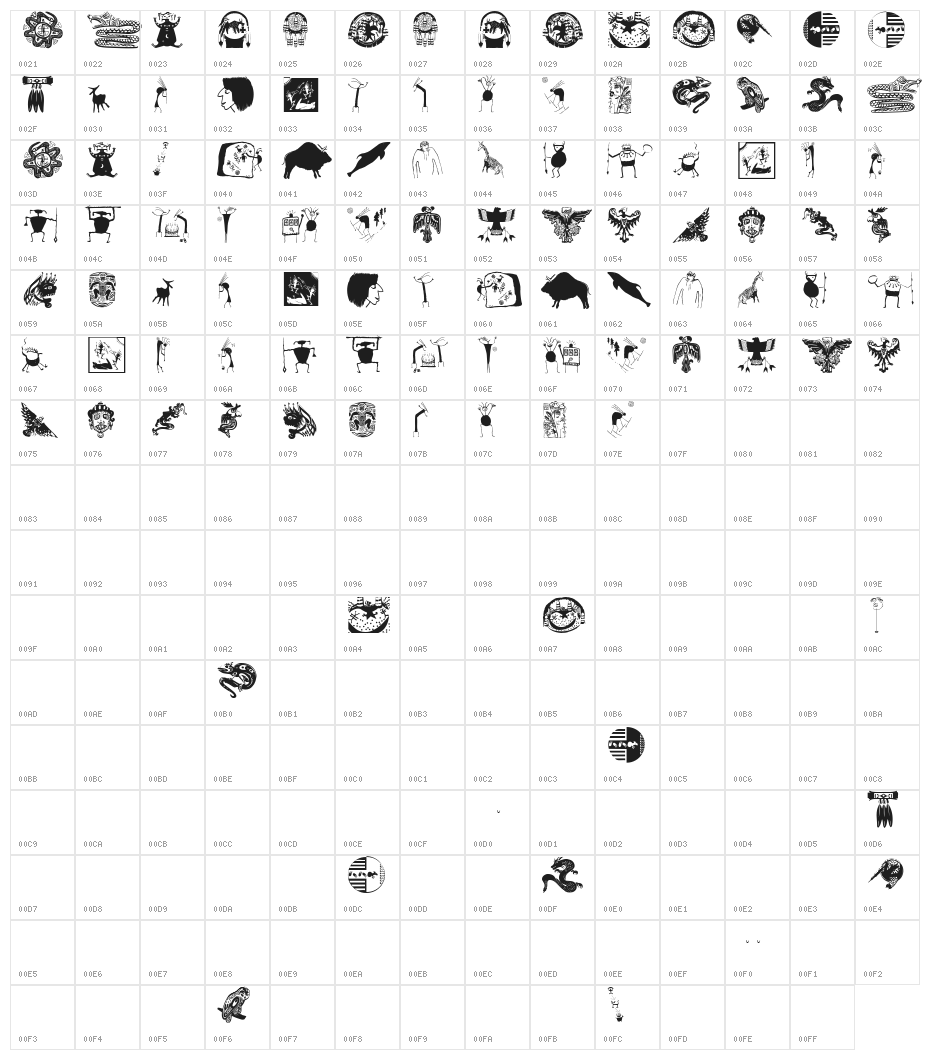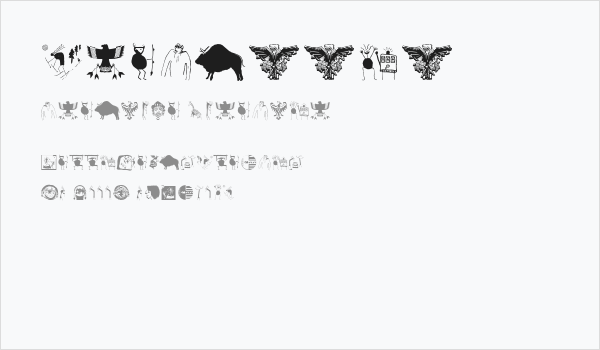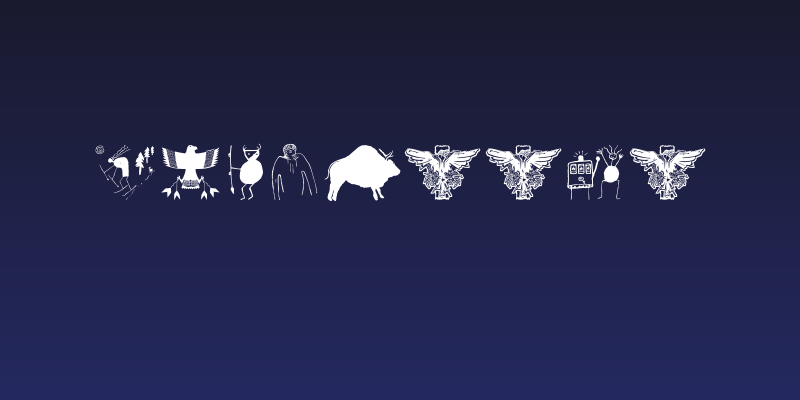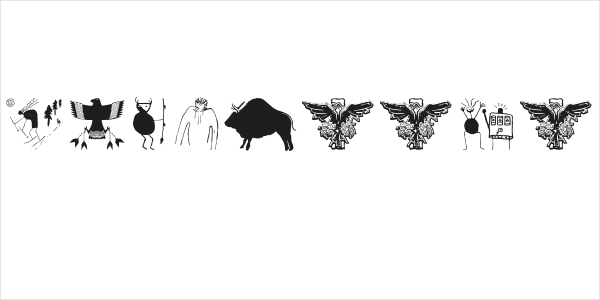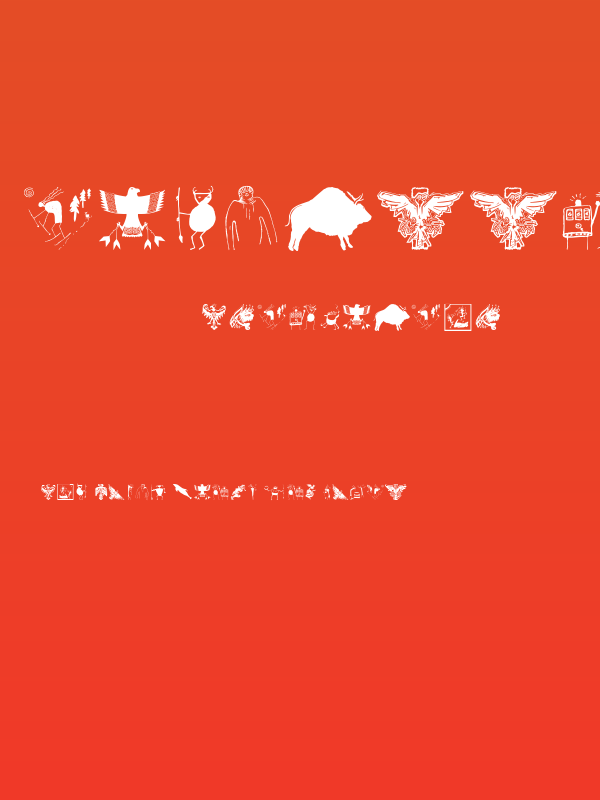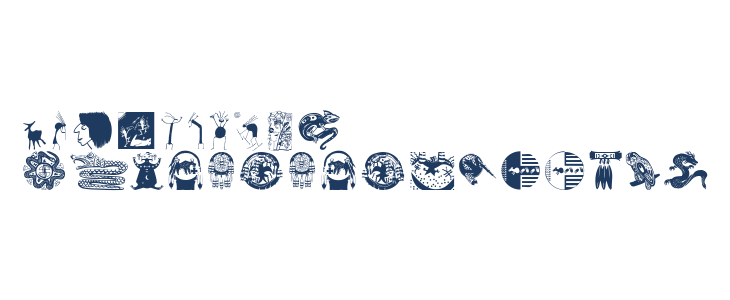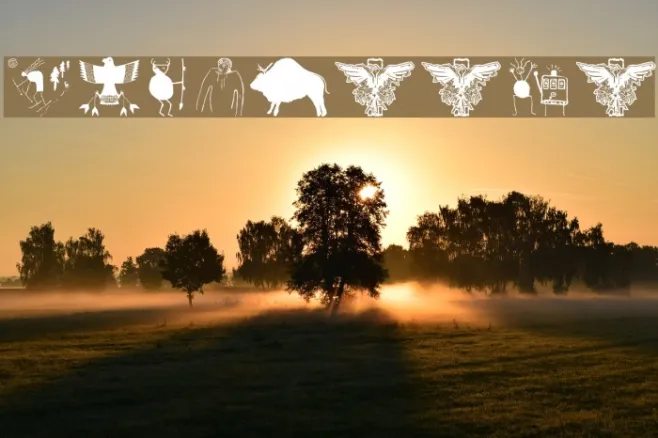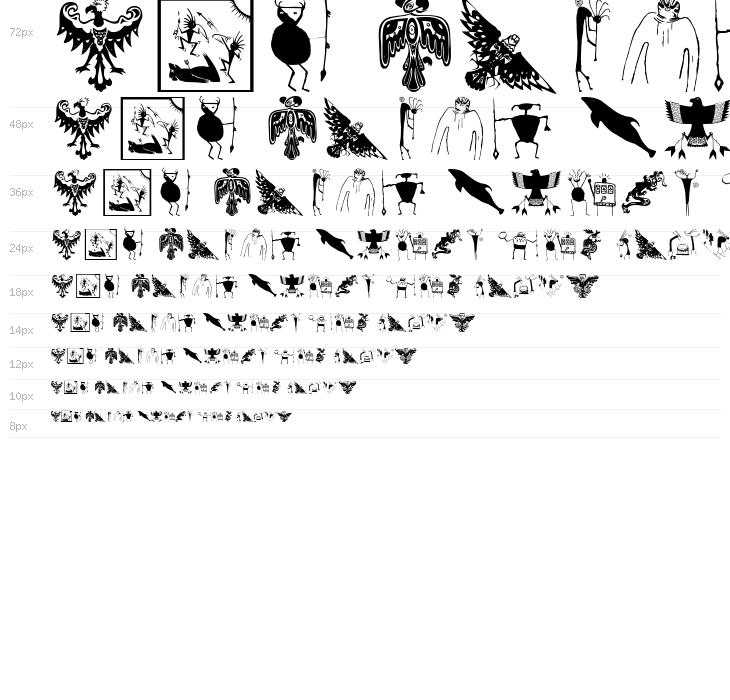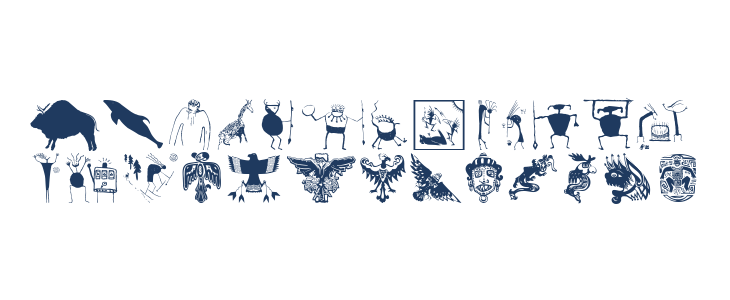
Precassos Font
Precassos Description
A decorative display font featuring pictograms and illustrations inspired by prehistoric, indigenous, and tribal art, including animals, human figures, masks, and symbolic motifs. The glyphs are highly stylized and detailed, with a hand-drawn, organic appearance.
| Overall Style | Decorative, Tribal, Prehistoric, Artistic |
| Use Case | Logos, Posters, Themed Headlines, Educational Graphics |
| Proposed Projects | Educational materials, museum exhibits, cultural event posters, themed branding, art projects. |